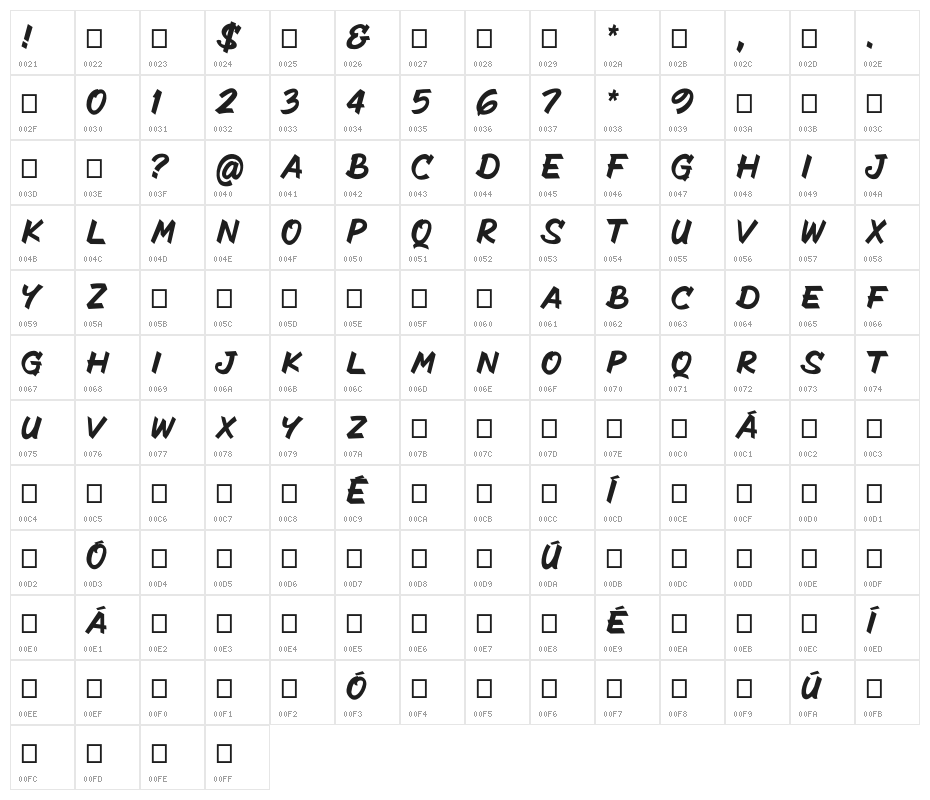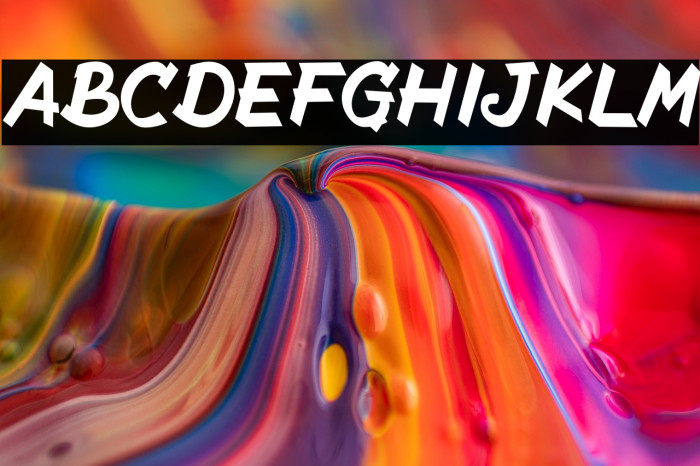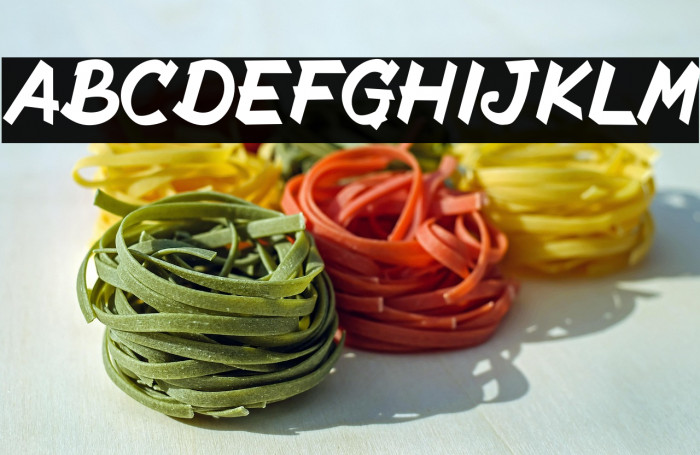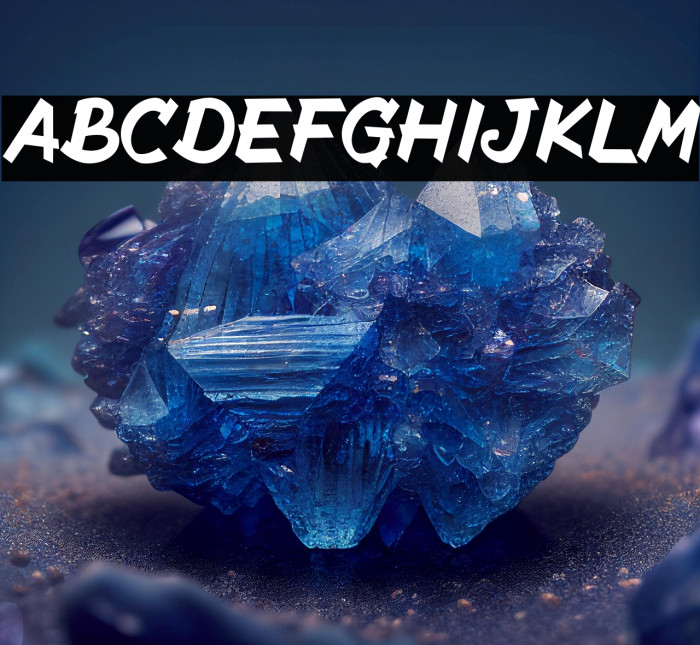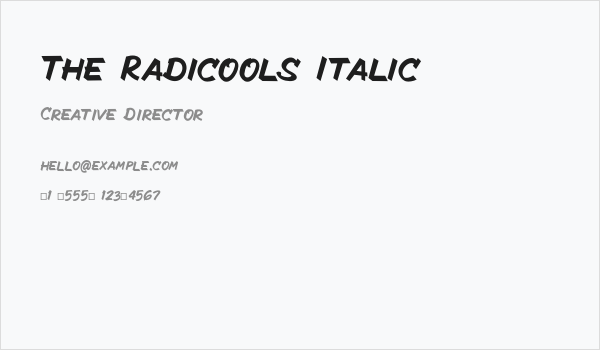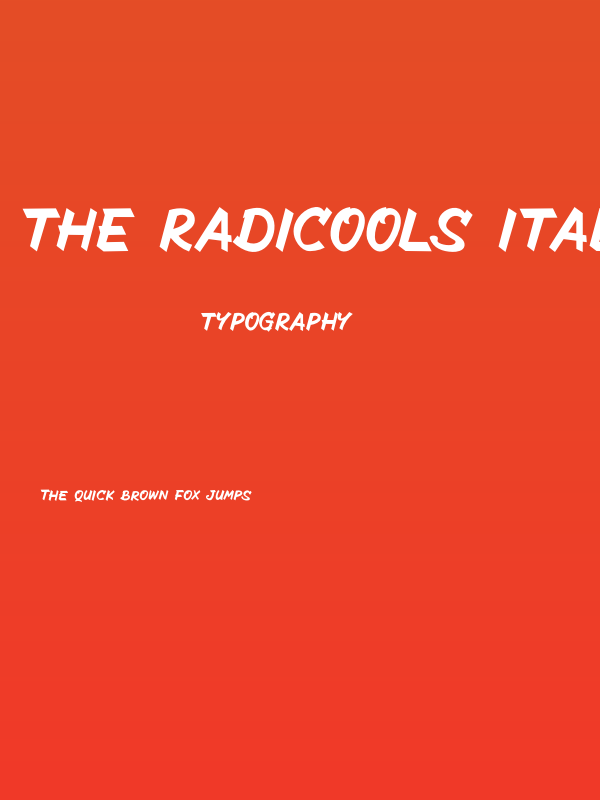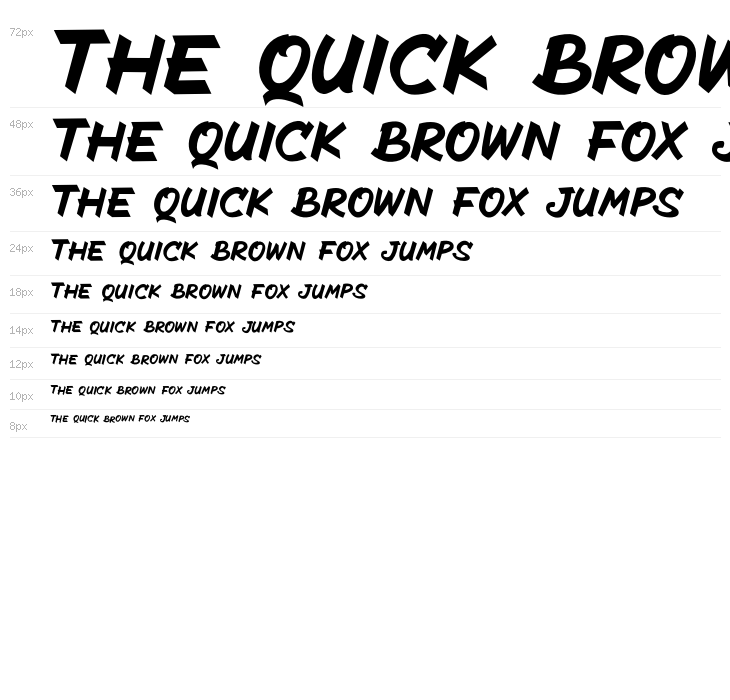
The Radicools Italic Font
The Radicools Italic Description
This font features a bold and dynamic style with a strong italic slant, giving it a sense of movement and energy. The characters are thick and robust, with sharp edges and a slightly condensed form. The uppercase letters are particularly striking, with a bold presence that commands attention. The lowercase letters maintain the same energetic style, ensuring consistency across the typeface. Numbers are equally bold and clear, making them suitable for impactful displays. The special characters are designed to match the overall aesthetic, providing a cohesive look. This font is ideal for projects that require a bold and energetic appearance.